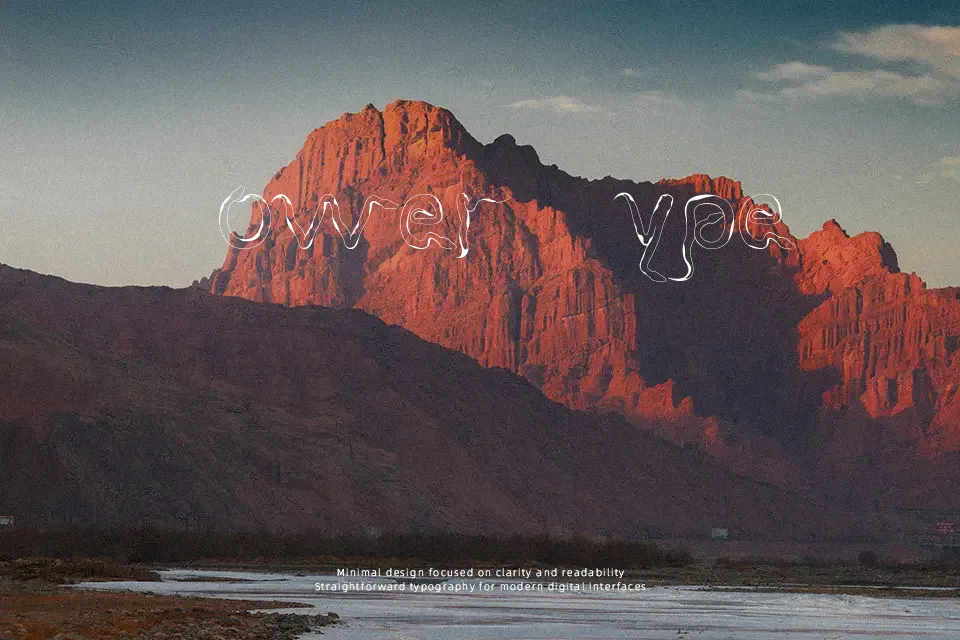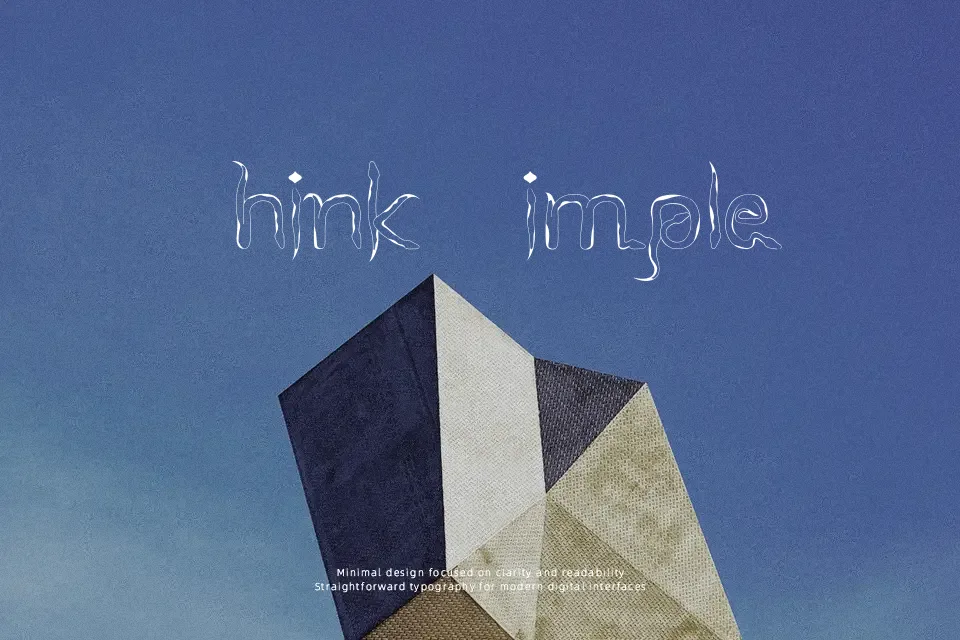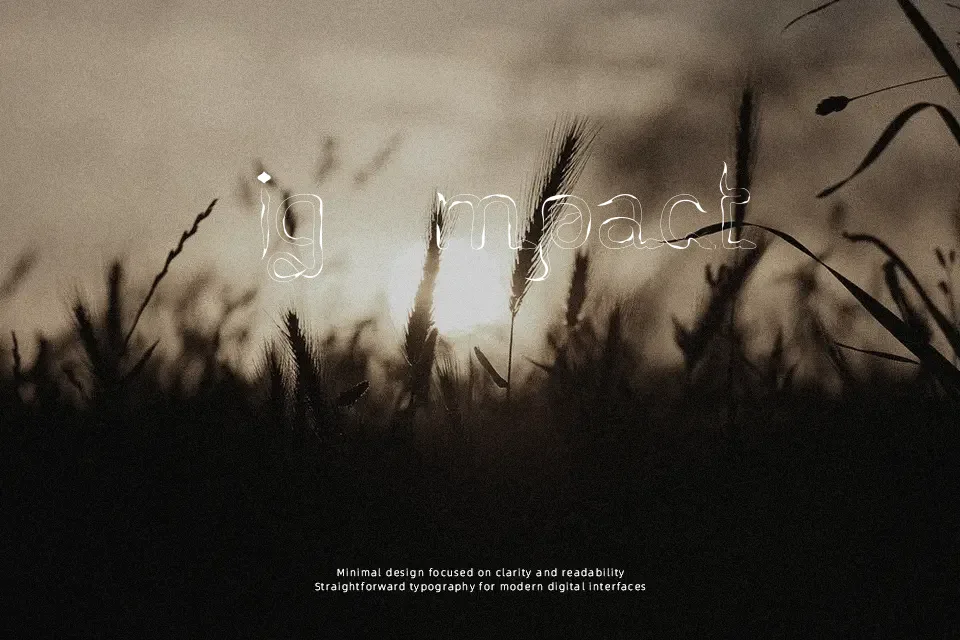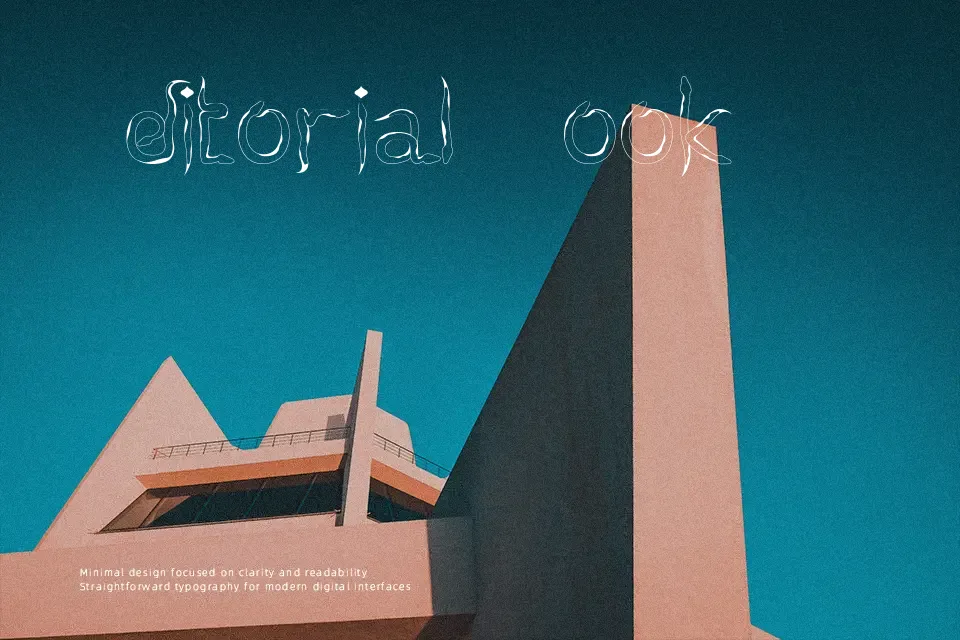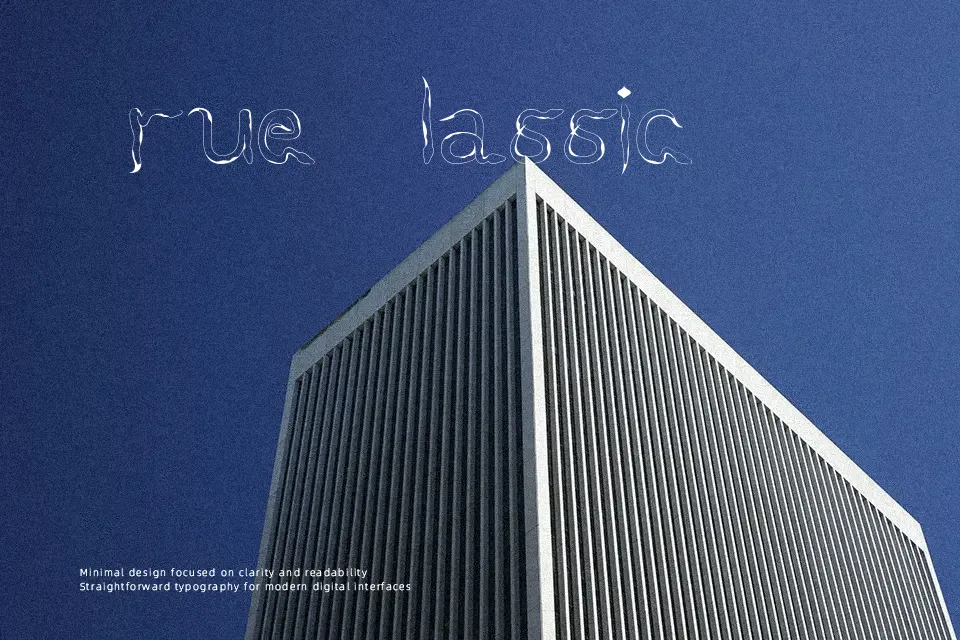
Slither NN Font
Designed by Nour N.
Slither NN Font introduces an eccentric display aesthetic defined by organic, undulating strokes and expressive terminal gestures across its character set. The typeface features fluid contours with variable internal proportions, giving each glyph a distinctly kinetic rhythm. While character spacing remains relatively compact to preserve visual density in large display headings, the dramatic movement within individual forms requires ample surrounding whitespace. In medium and headline sizing, the letterforms deliver unmistakable personality for event branding and thematic merchandise. However, the intricate curvilinear anatomy compromises legibility in continuous text, making the design unsuitable for dense editorial paragraphs or small interface elements.
Best For: poster headlines, thematic apparel graphics, gaming logos, entertainment branding
Not Ideal For: long paragraph text, mobile user interfaces, small caption labels, dense editorial layouts
Perfect for gaming, headline, and logo, with a artistic and decorative style.